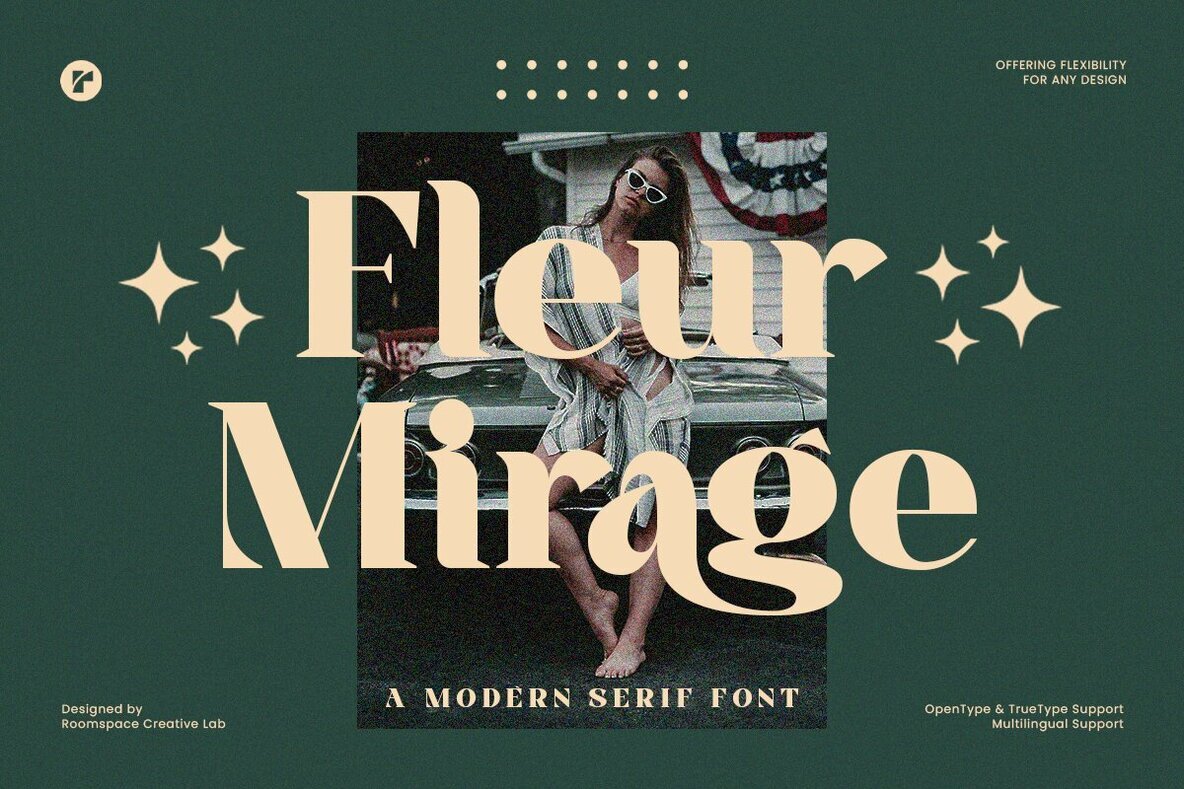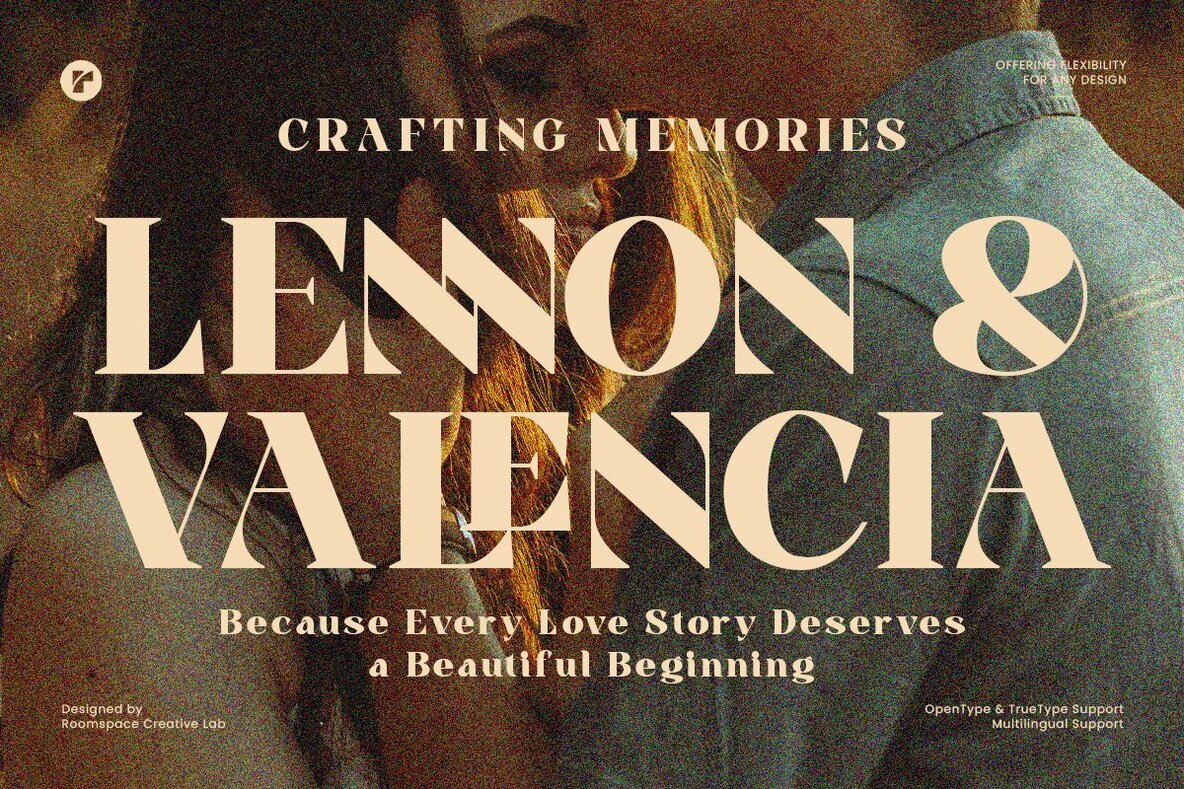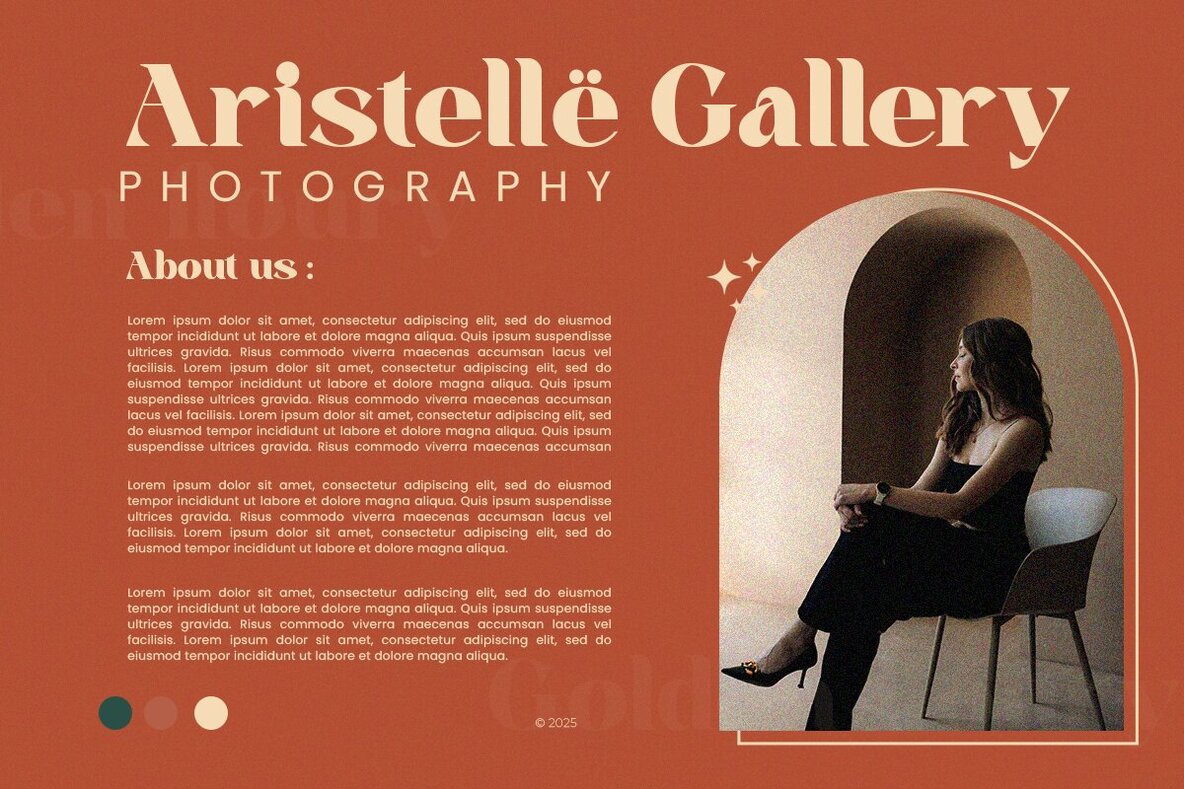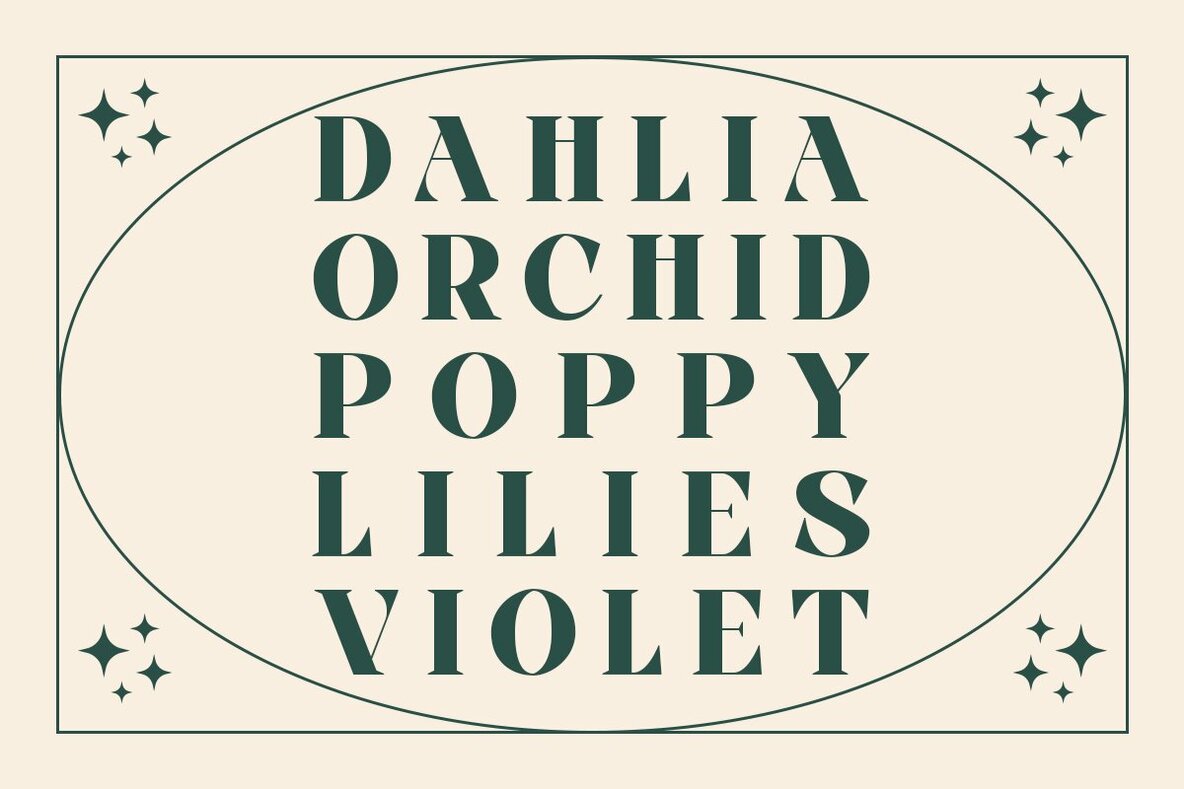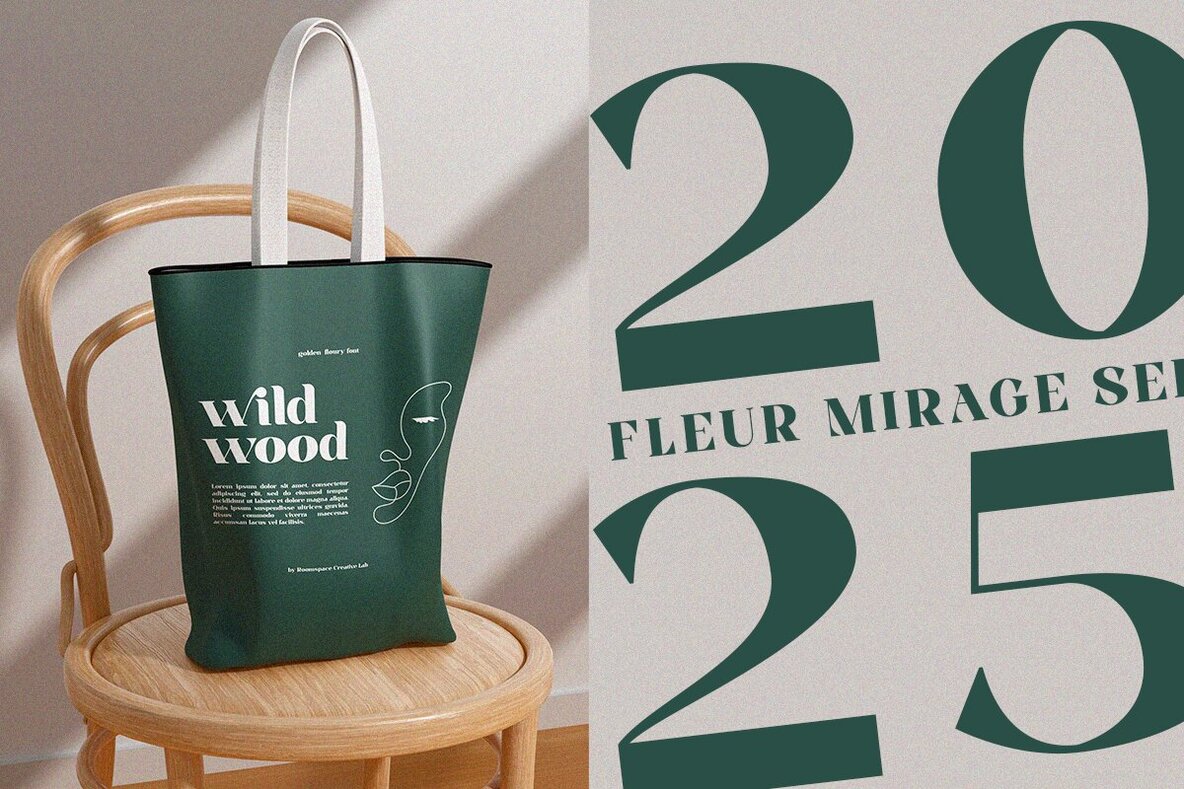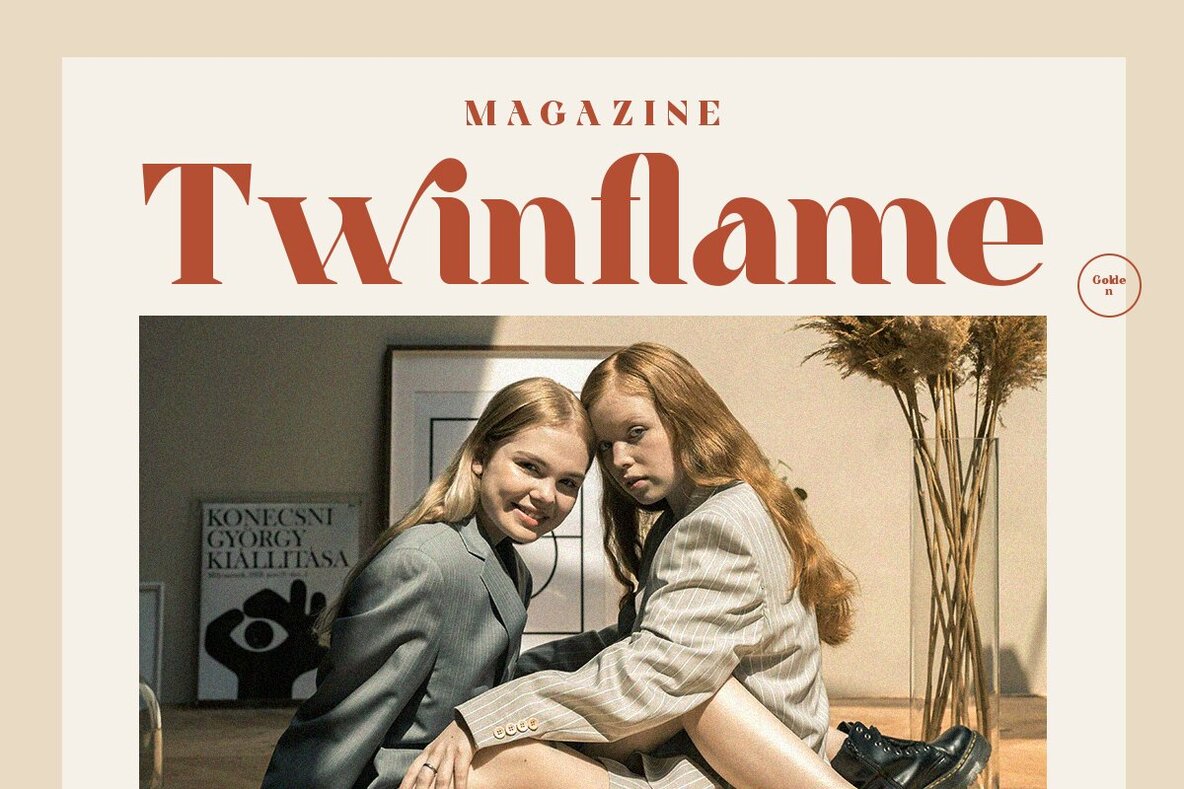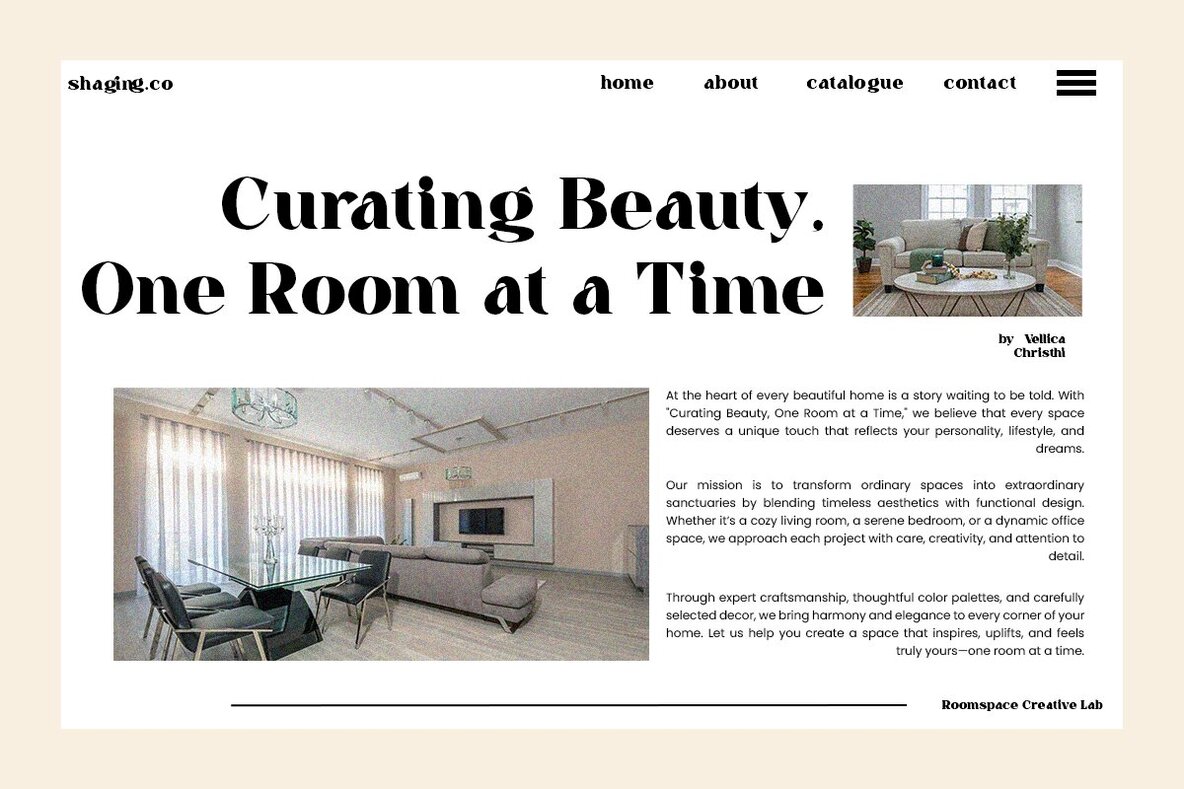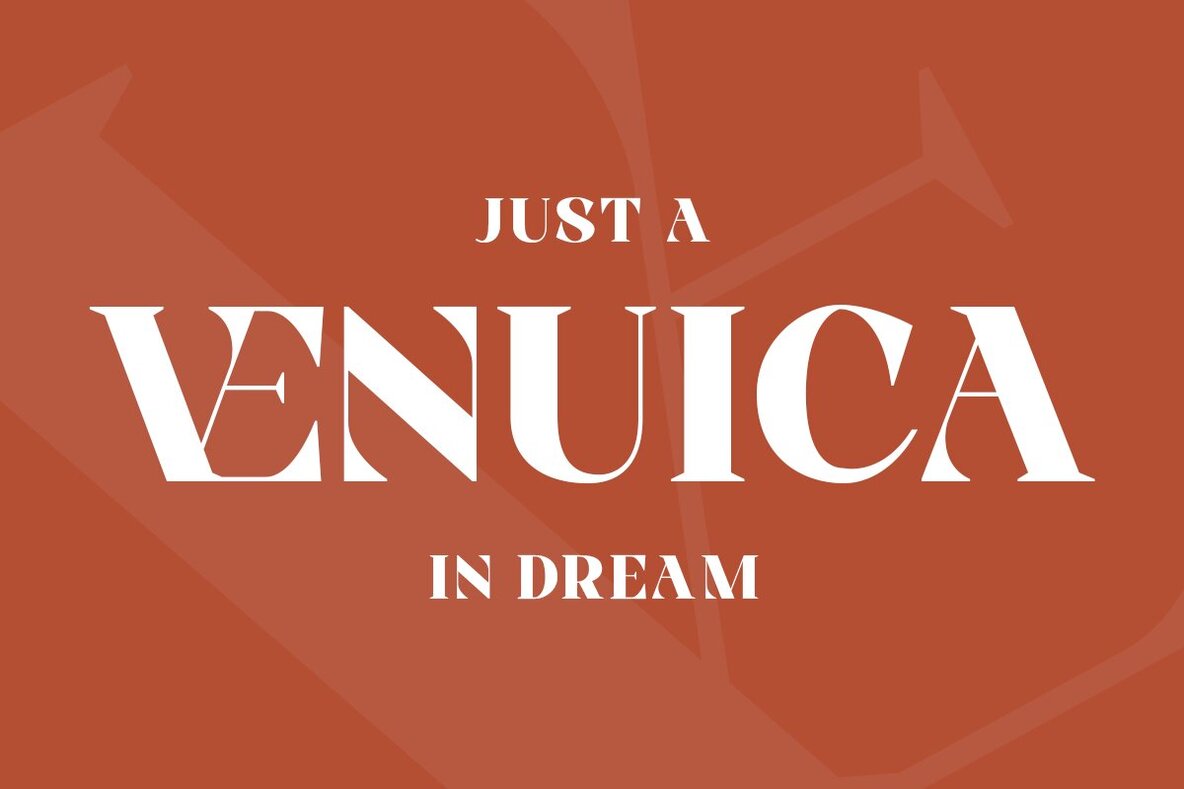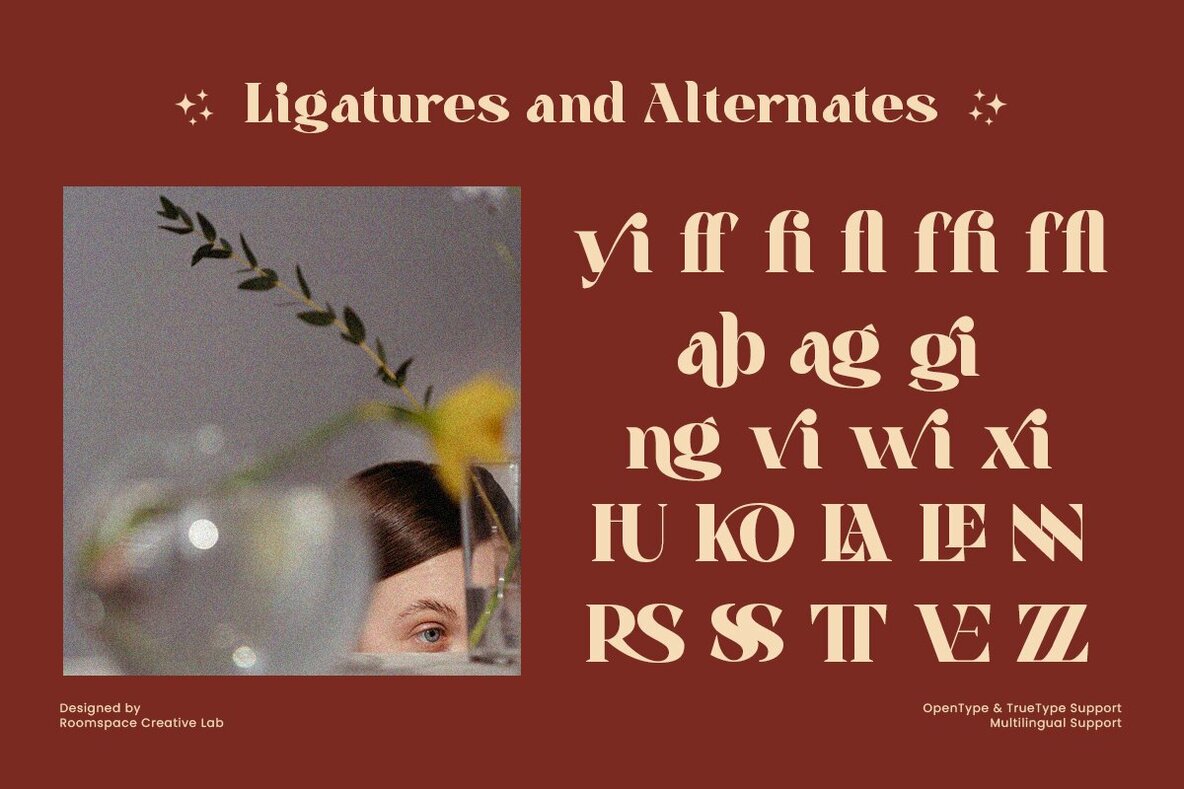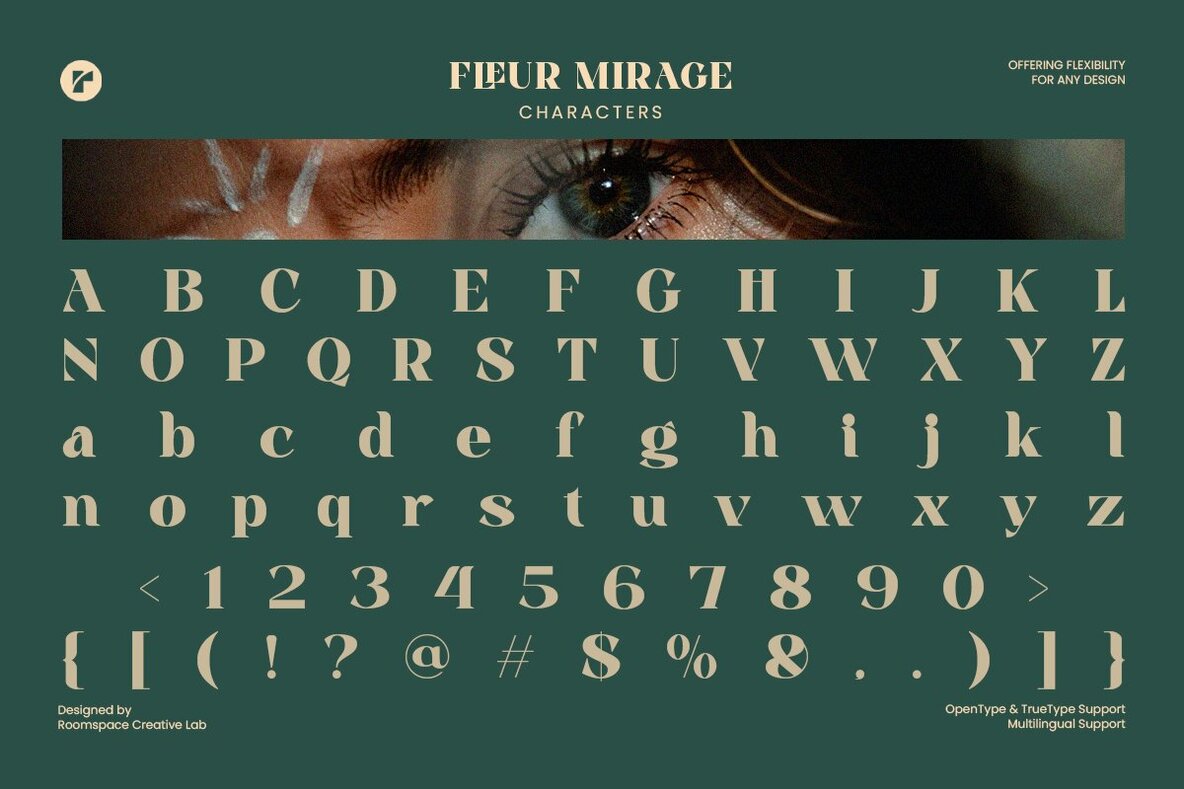
Fleur Mirage Font
Fleur Mirage captures a nostalgic charm while embodying a contemporary elegance, making it the perfect serif font for your creative endeavors. Infused with the inspired aesthetics of the 60s and 70s, this versatile typeface is an ideal choice for projects ranging from logos and wedding invitations to magazine layouts and social media graphics. With its unique blend of soft curves and bold serifs, Fleur Mirage adds sophistication and a touch of vintage flair to any design. Designed to meet the needs of diverse creative projects, Fleur Mirage boasts features like unique ligatures and alternates, offering you the flexibility to craft personalized and artistic typography. Its multilingual support ensures that your designs can communicate effectively across the globe. Whether you're aiming for a classic or modern look, this font seamlessly fits any style. Choose Fleur Mirage to fulfill your creative aspirations with its clean lines, decorative nuances, and sophisticated appeal. Dive into a world where beauty meets versatility and make sure your designs shine.Fleur Mirage: A Retro-Modern Serif
Font for Timeless ElegancePerfect for Various Design Needs